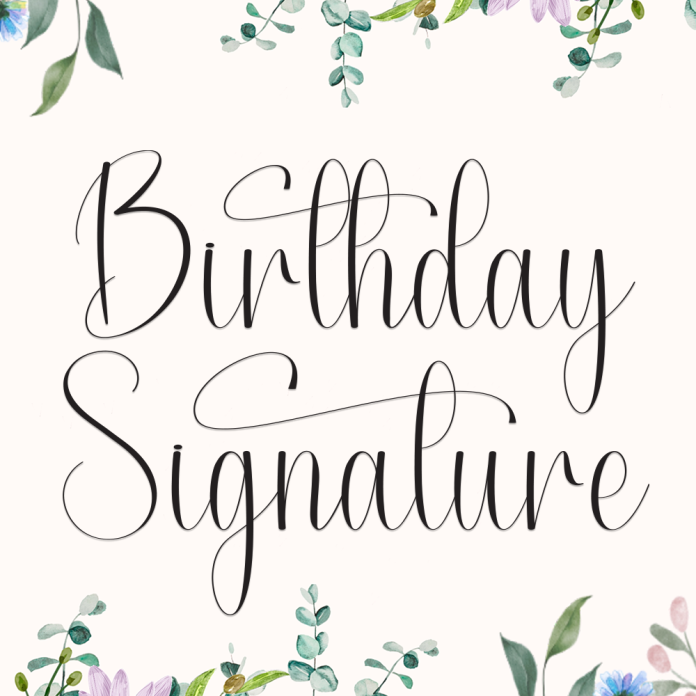
Birthday Signature is a charming and graceful handwriting font designed to resemble a personal, flowing signature. With delicate curves and a celebratory feel, it’s perfect for adding a personal touch to your birthday-themed designs or any elegant occasion.
Whether you're creating birthday invitations, greeting cards, name tags, social media posts, or branding elements, Birthday Signature adds a touch of handwritten sophistication and warmth.
Handwriting style with a natural and stylish flow
Perfect for birthday cards, invitations, personal branding, and social posts
Includes uppercase & lowercase letters, numerals, and punctuation
Soft, elegant, and full of joyful character